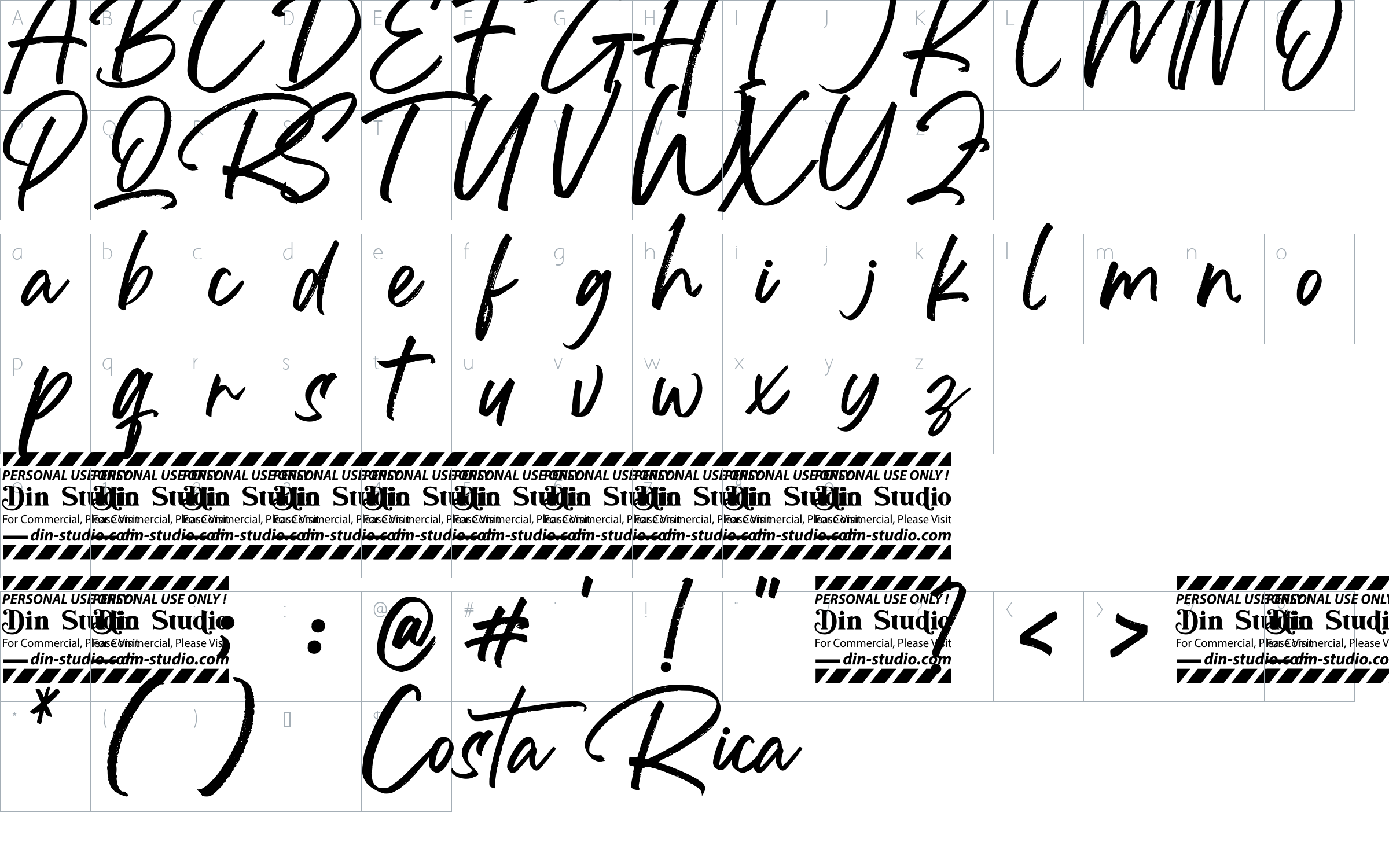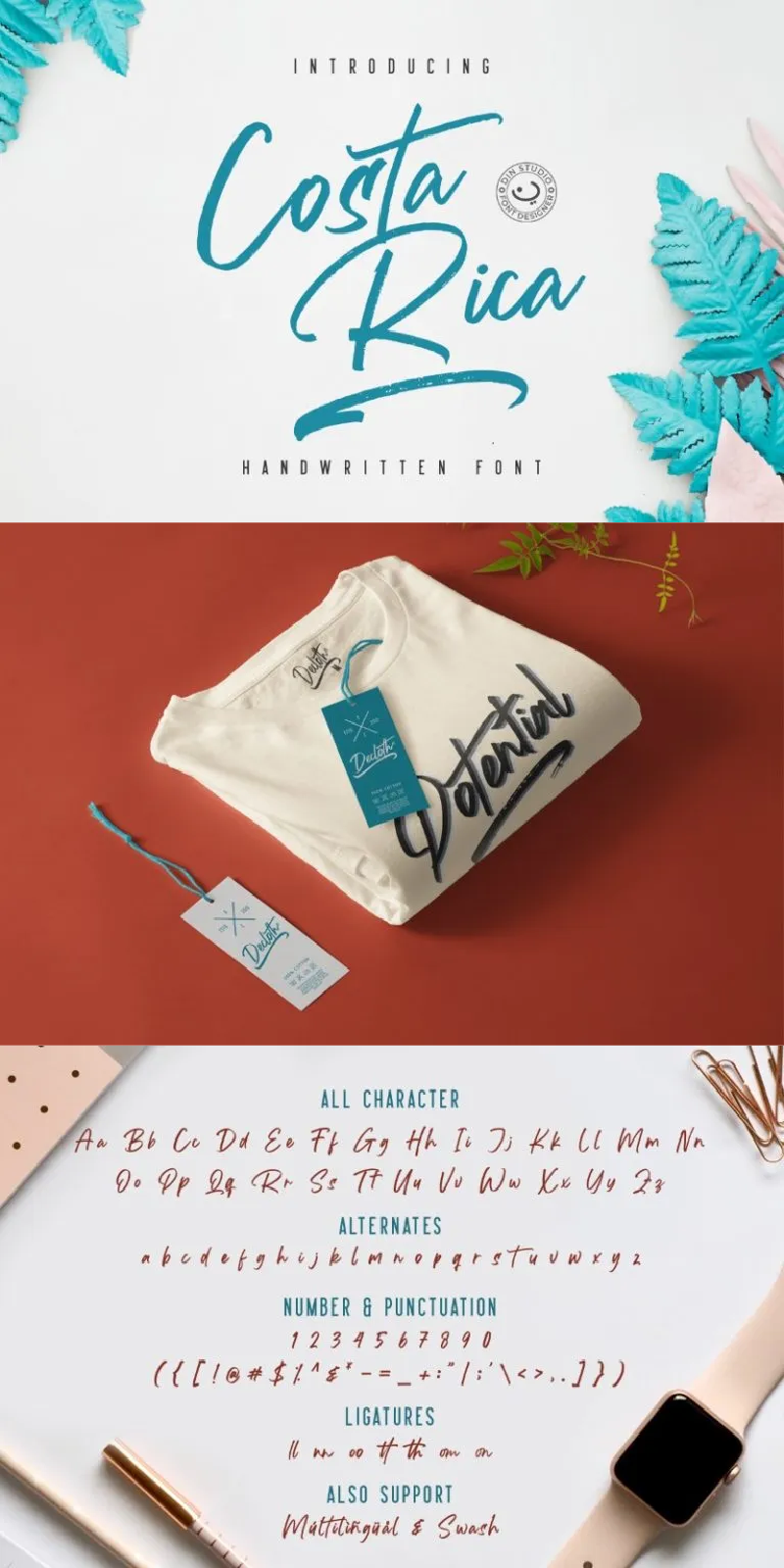
Costa Rica Font
About Costa Rica
Hello, everyone! Introducing Costa Rica – Handwritten Font. Costa Rica is a brush font made with natural brush. The texture from the brush font will make your designs more beautiful and powerful. This font is suitable for any designs like brandings, quotes, t-shirt printings, etc.
- Accents (Multilingual Characters)
- 26 Alternates
- 26 Extra Swashes
- Numerals and Punctuations (OpenType Standard)